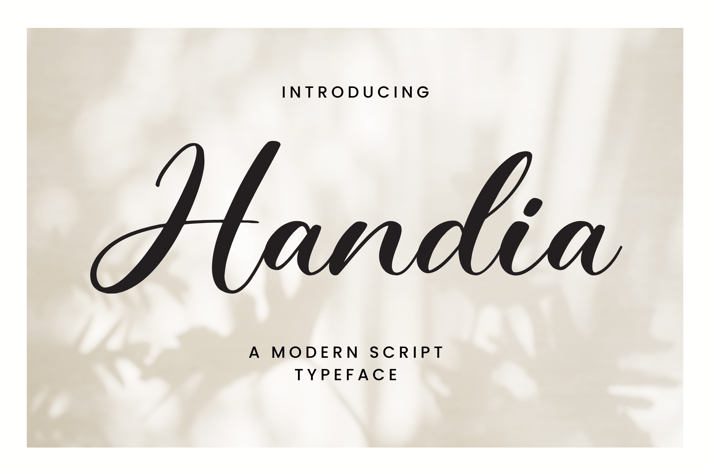
Handia - A Modern Script Typeface
Step into the world of contemporary elegance with Handia, a modern script typeface that seamlessly blends the precision of modern design with the fluidity of handcrafted script. Handia offers a perfect balance, making it ideal for a wide range of applications, from branding projects to stylish invitations.
The expressive strokes of Handia add a touch of personality to your words, making every design uniquely captivating.
Handia stands out for its versatility and readability. The modern aesthetics of this script make it suitable for both digital and print media, ensuring your message is delivered with clarity and flair.
Whether you're crafting a logo or designing a greeting card, let Handia be your go-to choice for a modern script that bridges the gap between contemporary and classic.